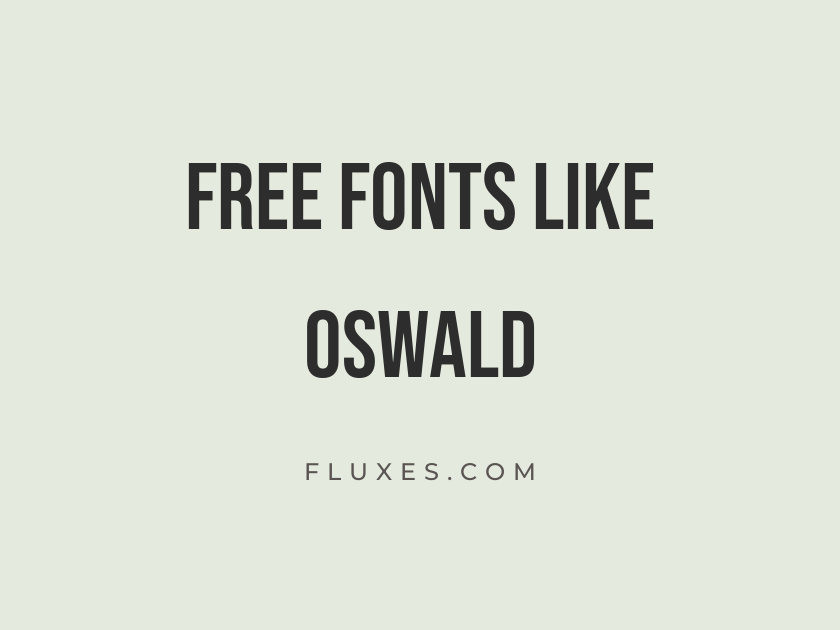
14 Best Free Fonts Similar to Oswald
Oswald built its reputation on a simple formula: the compressed, high-contrast proportions of classic gothic sans-serifs like Alternate Gothic, reworked for screens and optimized for headlines. That combination of narrow width, sturdy strokes, and confident uppercase forms is exactly why it shows up everywhere from posters to app interfaces. If you need a free font with that same condensed, headline-ready energy but want something with a slightly different voice, texture, or weight range, Google Fonts has a deep bench of options that share Oswald’s DNA without simply copying it.
The fonts below (in spirit, not in a literal sense) cover a spectrum from tight display faces built for a single punchy line to more versatile condensed families that hold up in body copy and UI labels too.
Bebas Neue is the font most designers reach for right after Oswald, and for good reason: it is even more compressed, all-caps only, and built purely for impact. It has no lowercase in its original form, so treat it as a display specialist for titles, badges, and posters rather than a body text solution.
Anton takes the condensed gothic idea and pushes the weight to its heaviest extreme. It reads almost like a woodblock print, dense and unapologetic, which makes it a favorite for sports graphics, streetwear branding, and anywhere a headline needs to shout rather than speak.
Fjalla One is probably the closest sibling to Oswald on this list, sharing a similar x-height and proportion but with slightly softer, more rounded terminals. It feels a touch friendlier and less industrial, which makes it a smart substitute when Oswald reads as too severe for the brand.
Where Oswald leans gothic and vintage, Barlow Condensed leans contemporary and engineered, part of the larger Barlow superfamily designed with a nod to California’s transportation signage. It comes in a full range of weights and widths, so it works equally well as a UI font, an editorial headline face, or a full-page display treatment.
Because it shares DNA with the regular-width Barlow, it also pairs naturally with itself for a tidy two-font system across a whole site.
Roboto Condensed
Roboto Condensed offers a more neutral, less characterful alternative for anyone who wants Oswald’s space-saving width without its vintage gothic flavor. It is dependable rather than expressive, which is precisely why it works so well in dashboards, tables, and dense interface labels.
Archivo Narrow
Archivo Narrow has a grotesque backbone with tighter spacing and crisper corners than Oswald, giving it a slightly more corporate, editorial feel. It sits comfortably in both headlines and subheads, making it a solid pick when a whole layout needs a consistent condensed voice rather than just a single display line.
Saira Condensed
Saira Condensed belongs to a huge type system, so if you like its proportions you can stay within the same family across widths and weights rather than hunting for a separate pairing font. It has a slightly more geometric, tech-forward feel than Oswald’s warmer gothic roots.
Teko is noticeably taller and more angular than Oswald, with pointed apexes that give it an almost architectural quality. It shines in large display sizes on posters and hero banners, but its sharp details can blur at small sizes, so keep it for headlines rather than fine print.
Yanone Kaffeesatz
Yanone Kaffeesatz swaps Oswald’s rigid gothic structure for something looser and more casual, originally inspired by German coffeehouse chalkboard lettering. It works nicely for menus, signage, and any project that wants condensed type without feeling stiff or corporate.
League Gothic
League Gothic is a direct digital revival of the same 19th-century American gothic tradition that inspired Oswald in the first place. It has a slightly more vintage, less refined texture, which makes it a good choice for retro branding, editorial mastheads, and anything channeling old print advertising.
Staatliches has a stenciled, stamped quality with tightly packed letterforms that feel almost industrial. It is a single-weight display font, so it is best reserved for logotypes, badges, and short bursts of text rather than anything requiring hierarchy or long paragraphs.
Khand
Khand softens the gothic edges with rounder joins and a slightly wider stance than Oswald, giving it a friendlier, more approachable presence. It was designed with Indic scripts in mind alongside Latin, so it is also a strong option for multilingual branding projects.
Test any of these at your actual heading sizes before committing. Some, like Teko and Staatliches, look striking at large scale but lose definition once they shrink below a certain point.
Any of these free Google Fonts can stand in for Oswald depending on how much gothic character, warmth, or neutrality your project calls for. Downloading a few and testing them directly in your own headlines is the fastest way to see which one earns a permanent spot in your type toolkit.